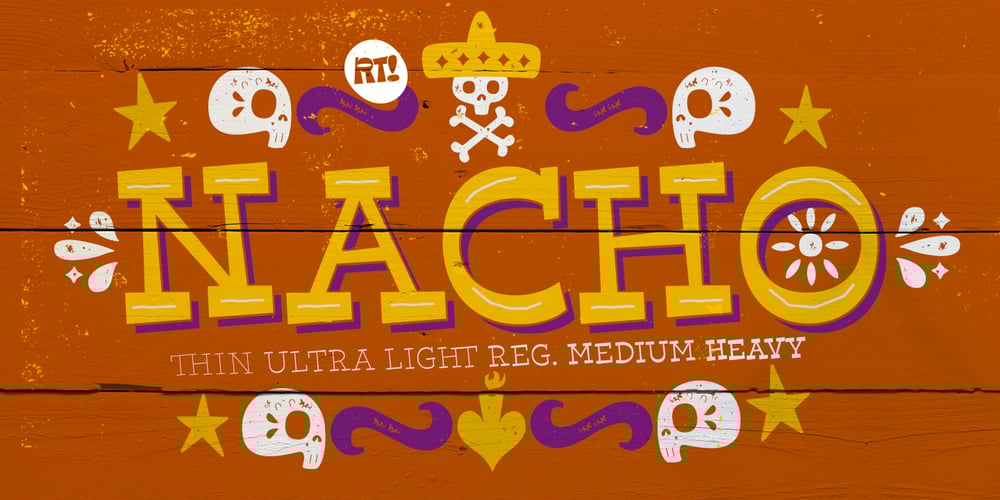
Nacho Font Family was designed by Rodrigo Araya Salas and published by RodrigoTypo. Nacho contains 12 styles and family package options. Nacho, is a font inspired by the Mexican culture as the party of the dead and customs, created From the Thin to the Densa, it also contains a dingbat set to make the text more dynamic.